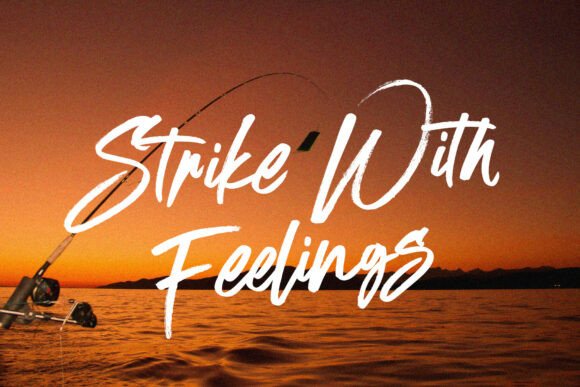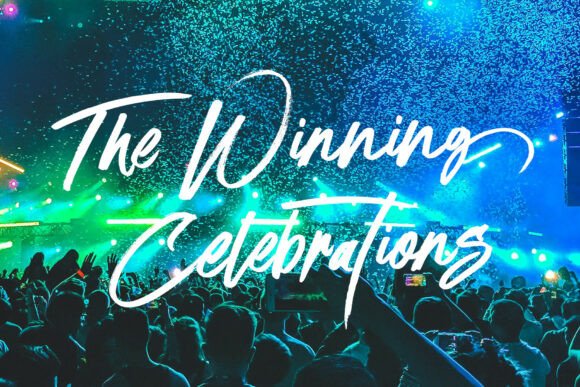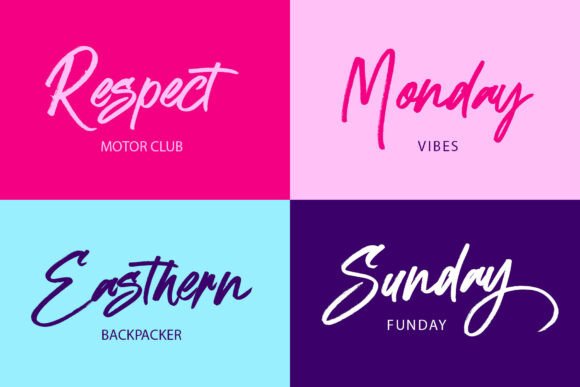
Introduction to Pistachio Font
Have you ever been in the midst of a creative project, staring blankly at a blank canvas or a blank document, searching for that perfect font to bring your vision to life? It’s a moment we’ve all been in, and it’s a moment that can make or break the success of our project. For designers, finding the right font can be a game-changer.
Enter the Pistachio Font, a dynamic, handwritten script font that’s about to revolutionize the way you approach your creative projects. With its bold, confident strokes and realistic brush texture, this font is sure to add a touch of organic energy and modern, artistic flair to any design. Whether you’re working on a label for artisanal coffee, a personalized greeting card, or a stylish apparel design, the Pistachio Font is the perfect addition to your design resource arsenal.
Key Features of Pistachio Font
- Pistachio Font is a unique and creative design element, perfect for adding a touch of elegance and sophistication to any project.
Honest Review: Pistachio Font
As a designer, I’m always on the lookout for high-quality design resources that can elevate my creative projects. Recently, I had the chance to work with the Pistachio Font, and I must say, it’s been a game-changer.
Here’s what works well: ✨ The Pistachio Font is incredibly versatile, with a unique blend of modern and vintage elements that make it perfect for a wide range of design projects. It’s also a free download, which is a major plus in my book. Plus, the font comes with a transparent background, making it easy to use in any design scenario.
One limitation I’ve noticed is that the Pistachio Font may not be the best choice for extremely small text sizes. At larger sizes, it’s stunning, but at smaller sizes, the details can get lost.
Overall, I’m thoroughly impressed with the Pistachio Font. It’s a high-quality design resource that’s perfect for creative projects, and its versatility makes it a must-have for any designer. ⚠️ Just be mindful of the text size limitations, and you’ll be golden!
Common Use Cases for Pistachio Font
Pistachio Font is ideal for designing greeting cards, invitations, and other creative projects that require a unique and eye-catching font. It’s also a great resource for designers who want to add a personal touch to their work.